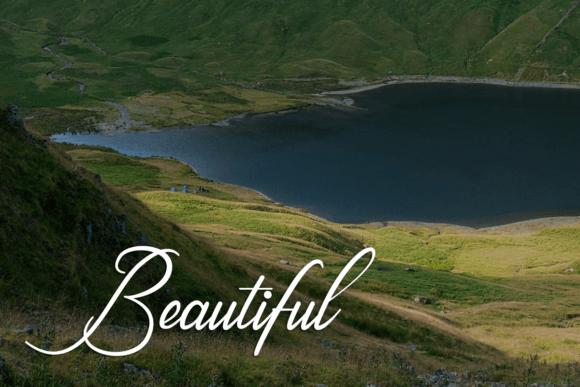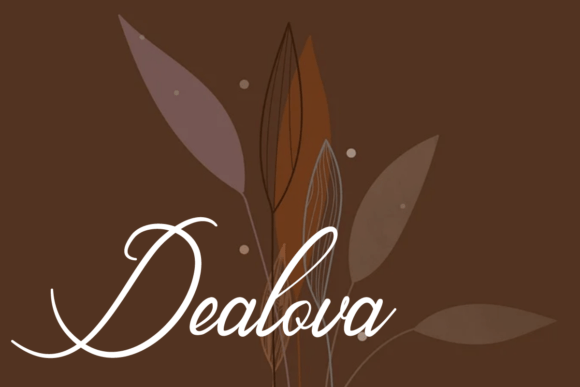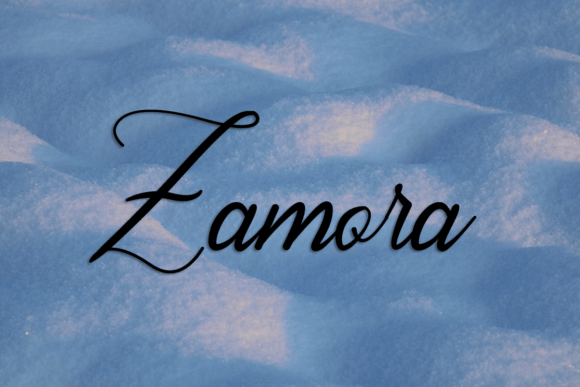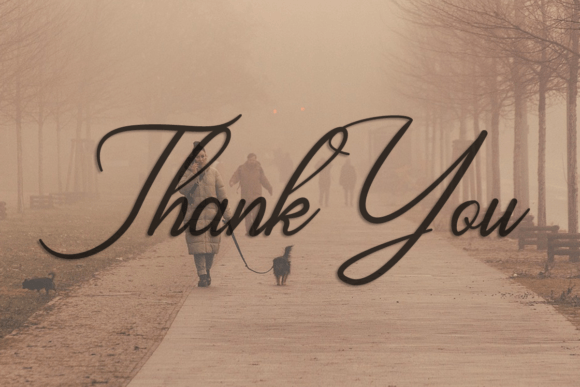
Amanda Font: Elevate Your Designs with Elegance and Timeless Style
Are you on the hunt for a font that exudes elegance, sophistication, and a touch of handmade charm? Look no further than the Amanda Font, a stunning handwritten typeface that is sure to capture your heart. With its unique blend of classic and modern elements, this beautiful font is perfect for designers and crafters seeking to add a personal touch to their projects.
What is Amanda Font?
Amanda Font is a meticulously crafted handwritten font, characterized by its elegant and refined appearance. Described as a neat and beautiful typeface with an elegant touch, it’s the perfect choice for those who appreciate the art of handwriting and want to infuse their designs with a sense of personality and warmth.
The Distinctive Features of Amanda Font
So, what sets Amanda Font apart from other typefaces? Here are a few of its standout features:
• Incredibly Distinct and Timeless Style: Amanda Font boasts a unique and classic look that never goes out of style. Its timeless appeal ensures that your designs will remain relevant and captivating for years to come.
• Elegant Touch: The font’s elegant and refined appearance makes it perfect for projects that demand sophistication and poise.
• Handwritten Charm: With its handwritten origins, Amanda Font brings a personal and human touch to your designs, setting them apart from more generic and impersonal typefaces.
Amanda Font’s versatility makes it suitable for a wide range of projects, including:
• Branding and Logo Design: Create a lasting impression with a custom logo that showcases your brand’s personality and style.
• Stationery and Invitations: Add a touch of elegance to your stationery, invitations, and greeting cards.
• Packaging Design: Stand out on store shelves with eye-catching packaging that reflects your brand’s unique character.
• Digital and Print Media: Use Amanda Font in your digital and print media, such as brochures, flyers, and social media graphics.
Why Choose Amanda Font?
With so many fonts available, why choose Amanda Font? Here are just a few compelling reasons:
• Unique and Memorable: Amanda Font’s distinctive style ensures that your designs will be remembered and noticed.
• Ease of Use: This font is incredibly easy to read and works beautifully in a variety of contexts.
• Customization Options: Experiment with different sizes, colors, and styles to make Amanda Font your own.
Tips for Using Amanda Font Effectively
To get the most out of Amanda Font, keep the following tips in mind:
• Pair with Complementary Fonts: Combine Amanda Font with other fonts that complement its elegant and refined style.
• Balance with White Space: Don’t be afraid to use white space to create a clean and sophisticated design.
• Experiment with Colors: Try out different colors and textures to add depth and visual interest to your designs.
In conclusion, Amanda Font is a beautiful and elegant handwritten typeface that is sure to capture your heart. With its incredibly distinct and timeless style, it’s the perfect choice for designers and crafters seeking to add a personal touch to their projects. Whether you’re working on branding, stationery, packaging, or digital media, Amanda Font is sure to elevate your designs and leave a lasting impression.
Get Ready to Fall in Love with Amanda Font
So, what are you waiting for? Discover the beauty and elegance of Amanda Font and take your designs to the next level. With its unique blend of classic and modern elements, this stunning font is sure to become a favorite in your design arsenal.